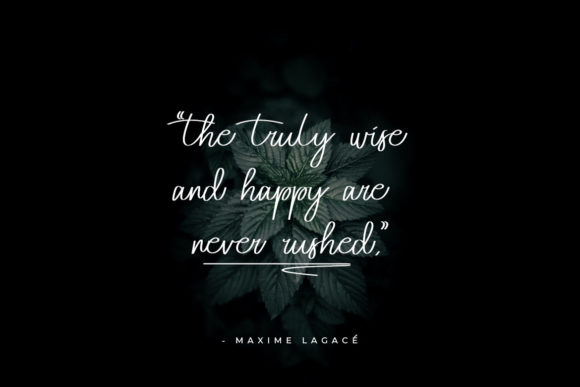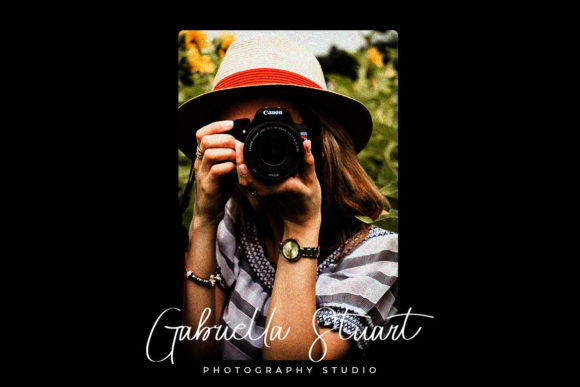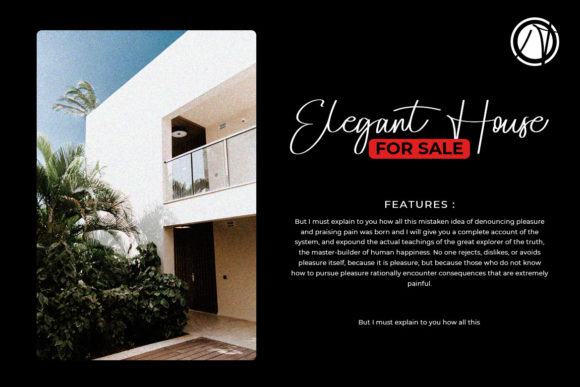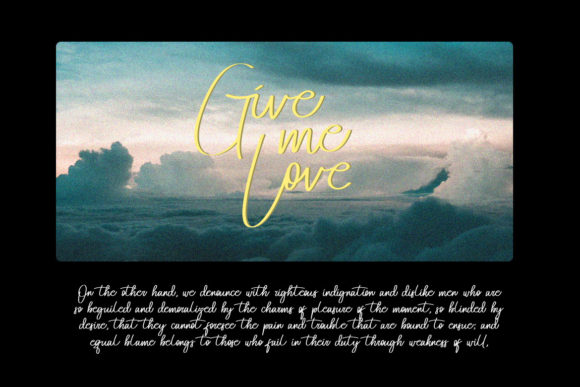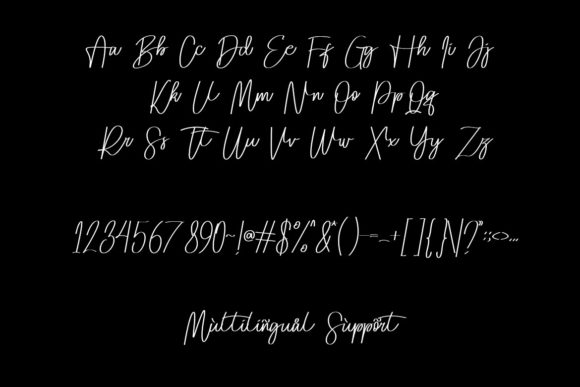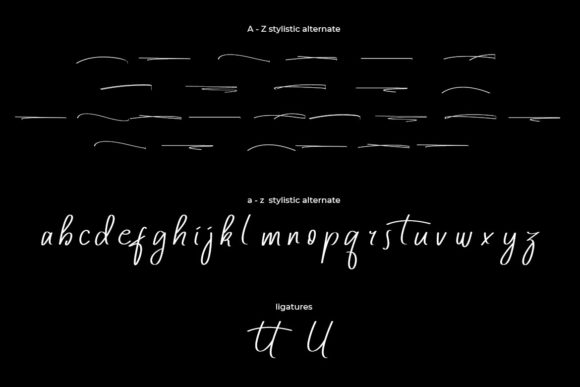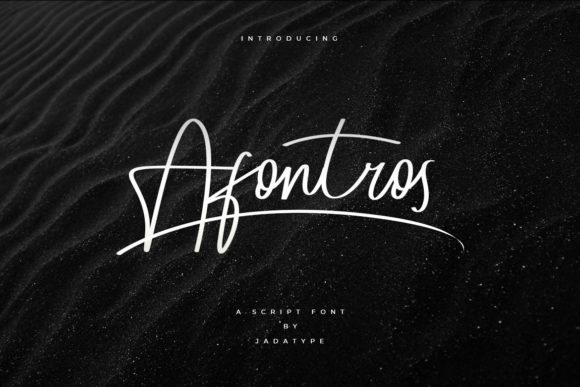
Afontros Font: The Perfect Choice for Romantic and Delicate Designs
Are you a designer or crafter looking for a font that can add a touch of romance and elegance to your designs? Look no further than Afontros Font! This beautiful, thin, and delicate handwritten font is perfect for creating stunning wedding invitations, cards, and other designs that require a personal and sentimental touch.
What Makes Afontros Font So Special?
Afontros Font is a unique and eye-catching font that is sure to capture the attention of your audience. Its dainty and joyful appearance makes it an ideal choice for designs that require a romantic and whimsical touch. Whether you’re creating wedding invitations, greeting cards, or other paper crafts, Afontros Font is sure to add a touch of elegance and sophistication.
Key Features of Afontros Font
- Thin and delicate appearance: Afontros Font features a thin and delicate appearance that is perfect for creating romantic and elegant designs.
- Handwritten style: This font has a beautiful handwritten style that gives it a personal and unique touch.
- PUA encoded: Afontros Font is PUA encoded, which means you can access all of the glyphs and swashes with ease.
- Wide range of uses: This font is perfect for a wide range of design projects, including wedding invitations, cards, paper crafts, and more.
Why Choose Afontros Font for Your Designs?
There are many reasons why Afontros Font is an excellent choice for designers and crafters. Here are just a few:
- High-quality design: This font features a high-quality design that is sure to impress your clients and audience.
- Versatile: Afontros Font can be used for a wide range of design projects, from wedding invitations to paper crafts.
- Unique and eye-catching: This font has a unique and eye-catching appearance that is sure to set your designs apart from the rest.
Tips and Tricks for Getting the Most Out of Afontros Font
Here are some tips and tricks for getting the most out of Afontros Font:
- Experiment with different sizes and styles: Try out different sizes and styles of Afontros Font to see what works best for your design.
- Pair with other fonts: Pair Afontros Font with other fonts to create a unique and eye-catching combination.
- Use swashes and glyphs: Take advantage of the PUA encoding and use the swashes and glyphs to add extra flair to your design.
- Use in combination with images: Use Afontros Font in combination with images to create a beautiful and visually appealing design.
Afontros Font is a beautiful and delicate handwritten font that is perfect for adding a touch of romance and elegance to your designs. With its thin and delicate appearance, PUA encoding, and wide range of uses, this font is an excellent choice for designers and crafters. Whether you’re creating wedding invitations, cards, or other paper crafts, Afontros Font is sure to impress. So why wait? Download Afontros Font today and start creating stunning designs!